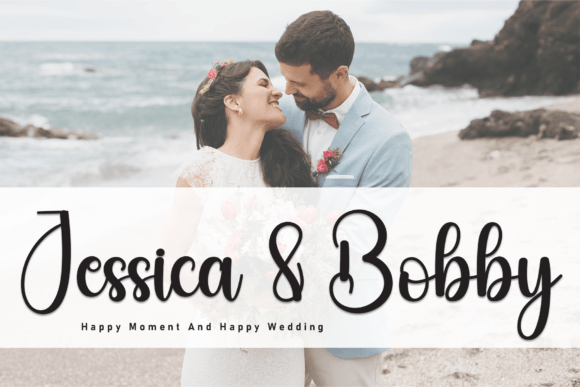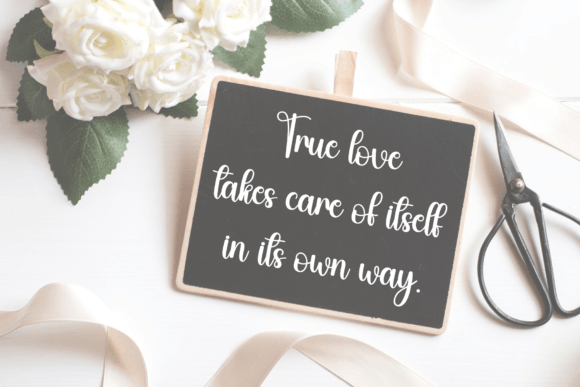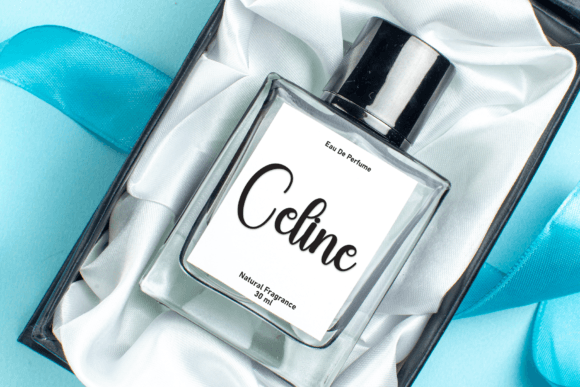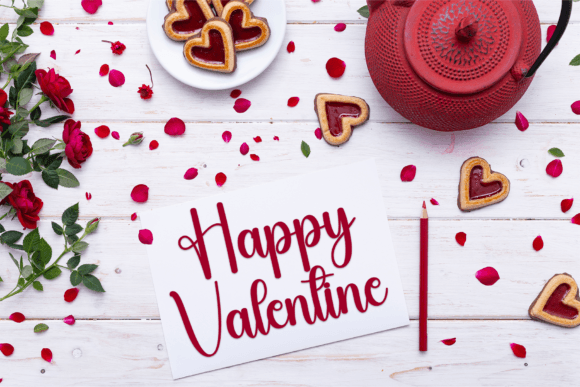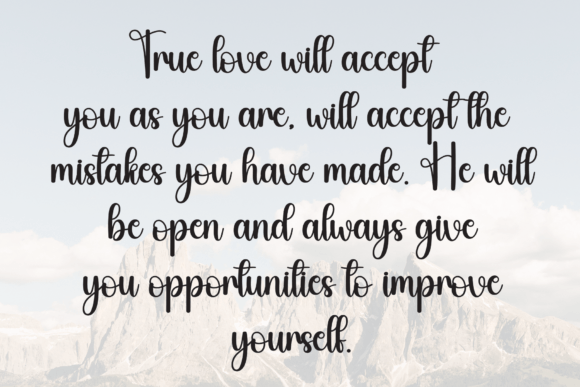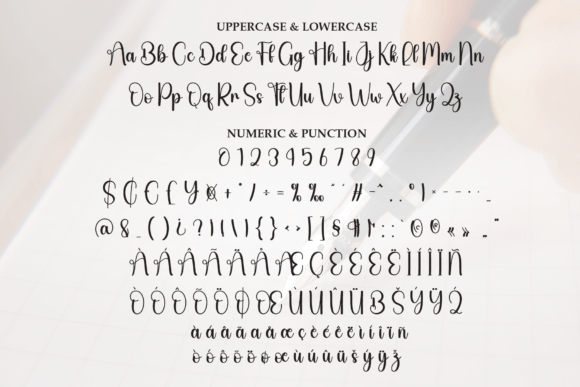
Discover the Perfect Blend of Casual and Chic with Autography Font
Have you ever been stuck in a design rut, searching for that perfect font to bring your project to life? I know I have. One late night, browsing through a collection of fonts, I stumbled upon Autography Font. As I clicked on it, I was immediately drawn to its modern, handwritten style. The fluid lines and effortless feel of Autography Font sparked a creative moment that inspired me to rethink my entire design approach.
Autography Font is a contemporary handwritten font that brings a fresh, modern touch to your projects. Its casual vibe adds a personal and friendly feel to any text, making it perfect for designers looking to give their designs a laid-back, yet polished look. With Autography Font, you can achieve a unique balance of style and approachability that sets your work apart from the crowd.
Autography Font Key Features
- Font Family: Autography Font is a unique, modern script font designed to evoke a sense of elegance and sophistication.
- Unique Characteristics: The font features a flowing, handwritten style with subtle variations in letterform and stroke width, giving it a personal and artistic feel.
Autography Font Review
Overall, I was really excited to dive into the Autography Font, but my experience was a mixed bag. Here’s a breakdown of what worked well and what didn’t.
- The unique aesthetic is definitely a highlight – it’s unlike any other font I’ve come across. The subtle flair and cursive feel make it perfect for creative projects.
- The font is highly legible, even at smaller font sizes. I was impressed by how clear the text remained.
- The extensive language support is a major plus, making it a great choice for multilingual projects.
- The font lacks a strong, bold weight, which can make it difficult to use for headings or titles.
- The italic style is a bit too exaggerated, which can be jarring in some contexts.
- The font family is quite large, which can lead to file size issues and slower load times.
While the Autography Font has some standout features, its limitations hold it back from being a top-tier font. It’s still a great choice for specific projects, but I wouldn’t recommend it for every design task.
Tips for Getting the Most Out of Autography Font
Use Autography Font for creative projects that require a unique and stylish touch. This font is perfect for:
- Wedding invitations
- Party decorations
- Photobooth signs
- Custom branding